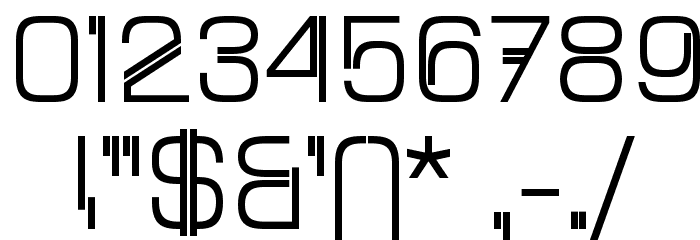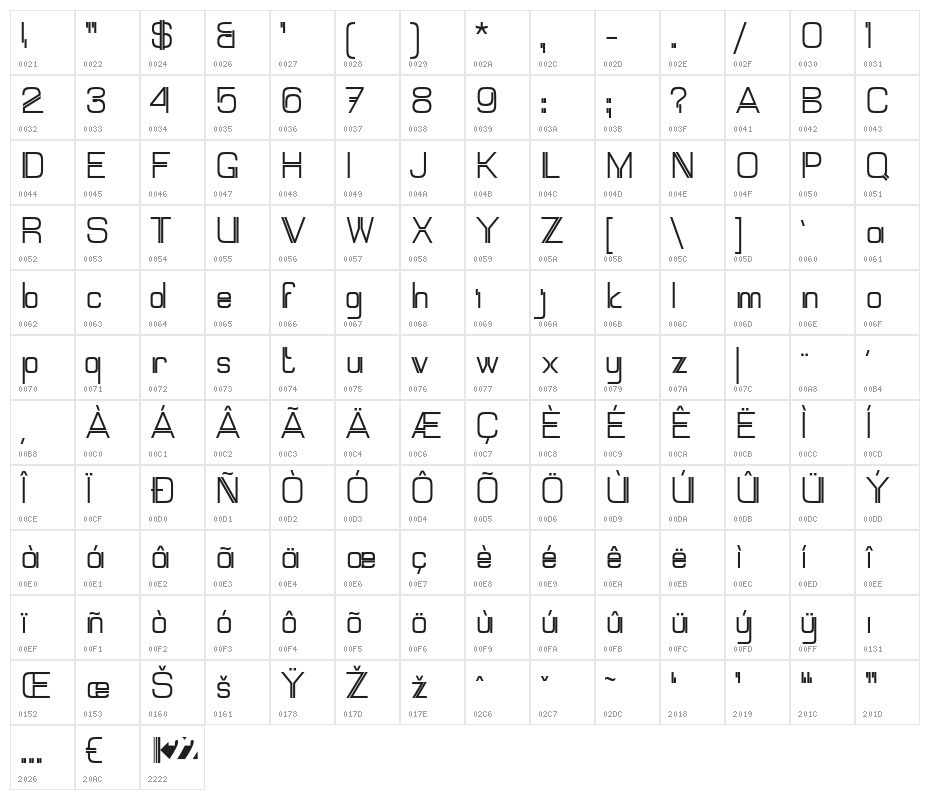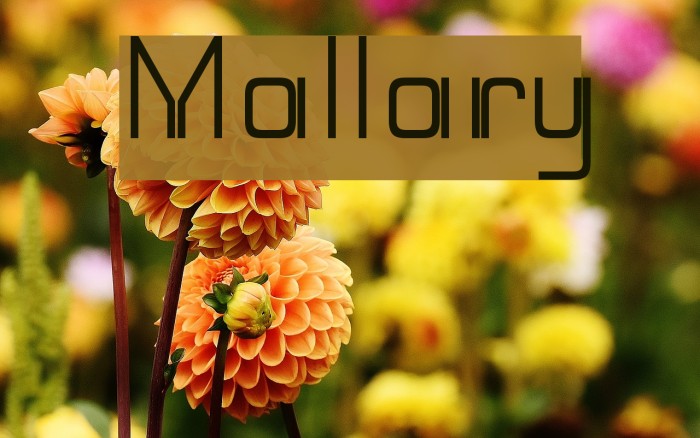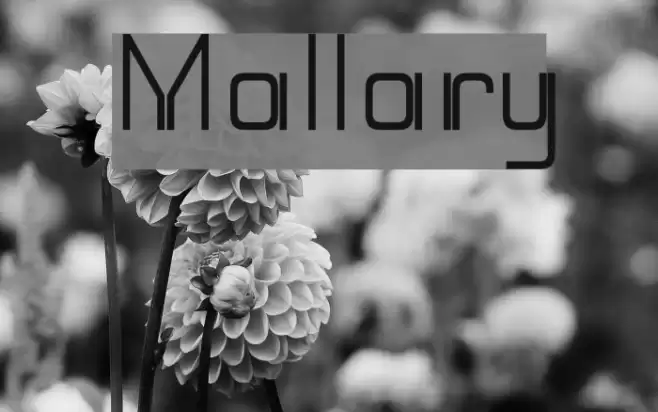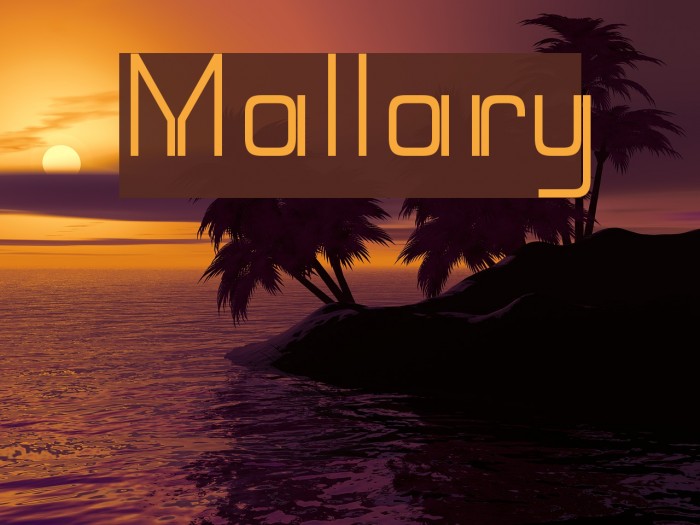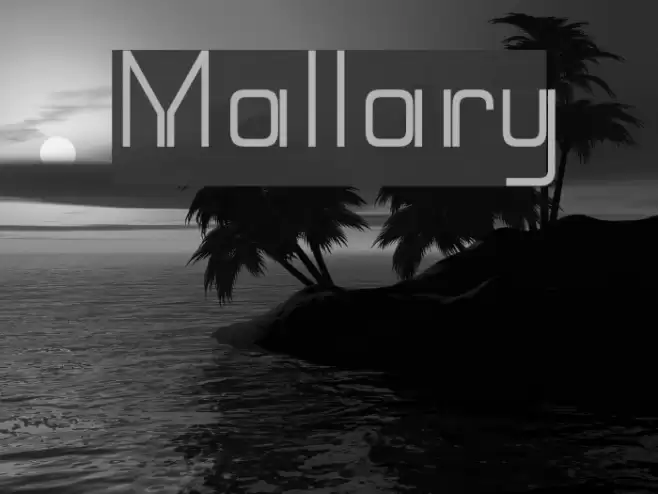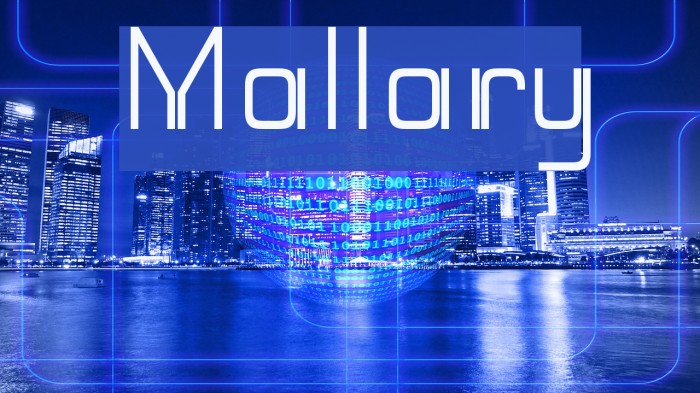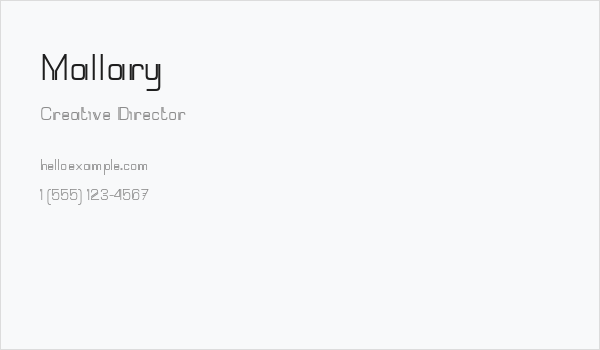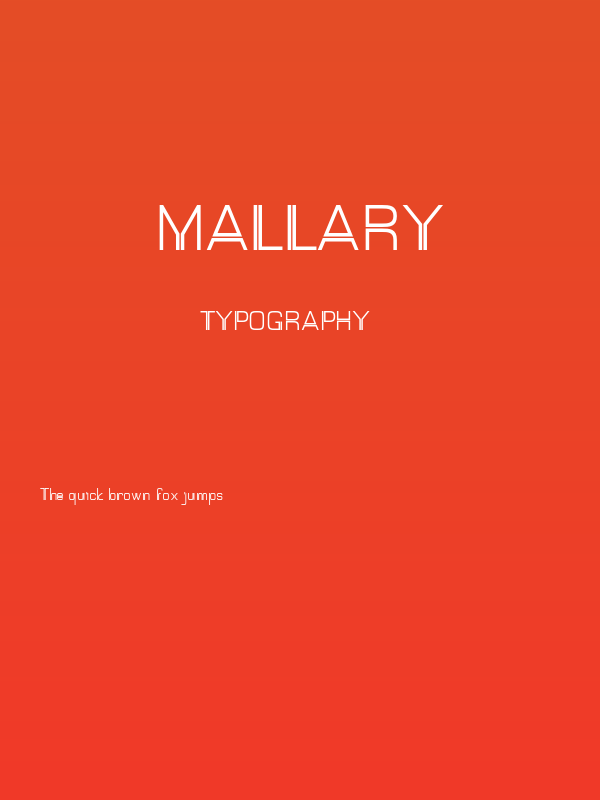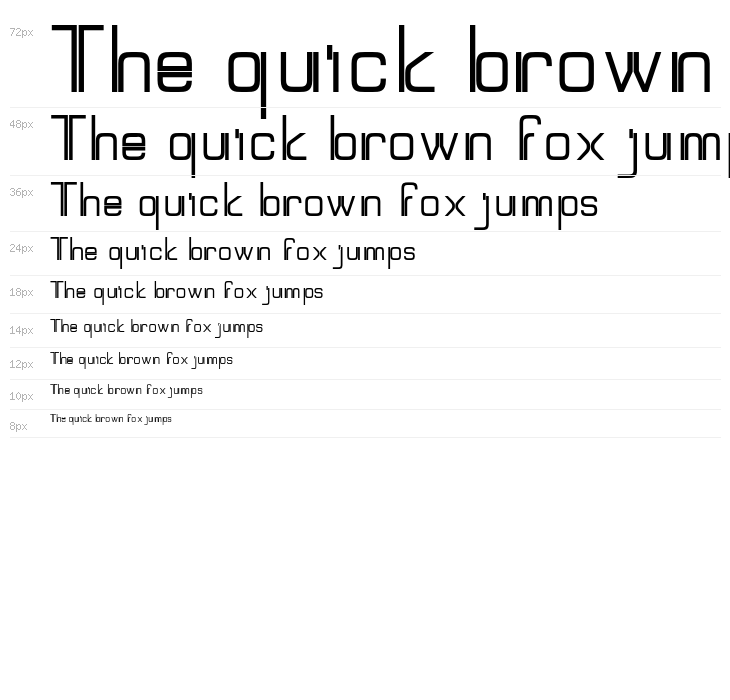
Mallary Font
Mallary Description
This font features a modern, geometric design with clean lines and a minimalist aesthetic. The characters are constructed with a consistent stroke width, giving it a uniform appearance. The uppercase letters are tall and narrow, while the lowercase letters maintain a similar width, creating a cohesive look. The numerals are distinct and align well with the overall style, ensuring readability. Special characters are integrated seamlessly, maintaining the font's sleek and contemporary feel. This font is well-suited for digital and print media, offering versatility in various design contexts.
| Use Case | Headlines, Logos, Digital Interfaces |
| Proposed Projects | Ideal for branding, digital interfaces, posters, and modern editorial design. |